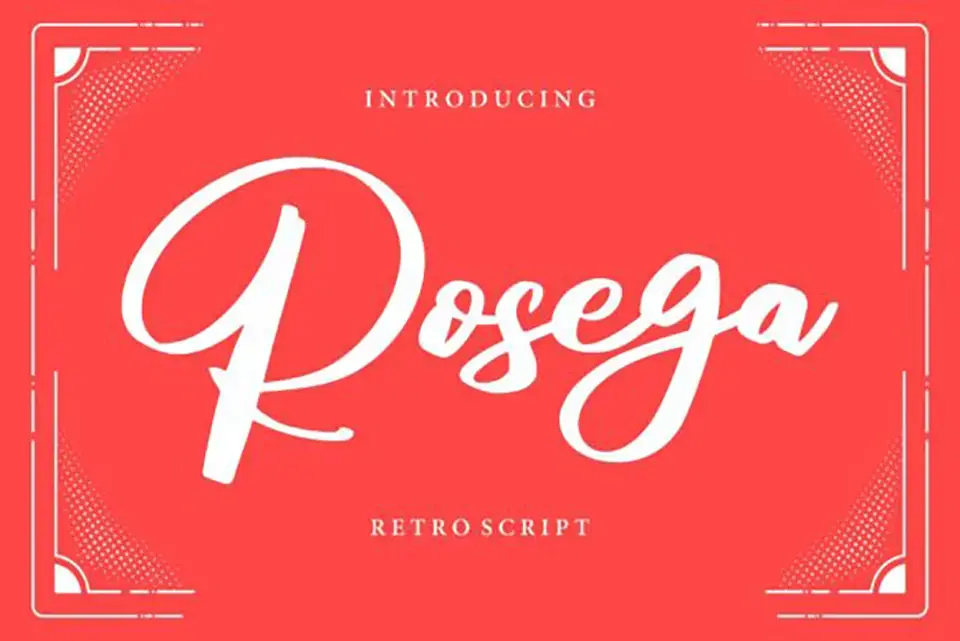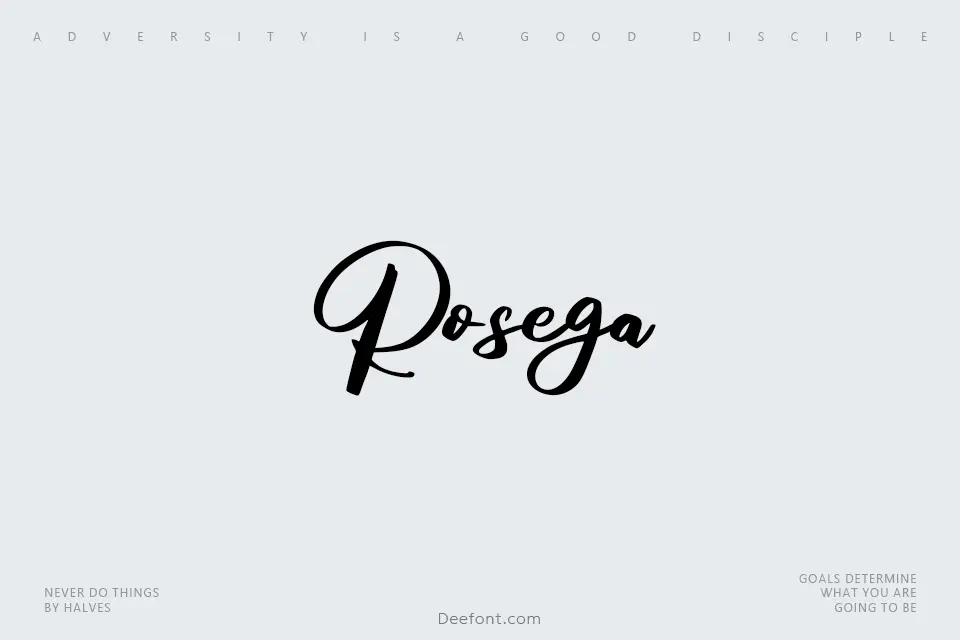
Rosega Font
Rosega is a stunning script font that combines elegance and femininity for sophisticated design projects. Its smooth, flowing letterforms deliver a handwritten charm ideal for wedding invitations, luxury branding, logo creation, and upscale packaging design. With bold yet graceful strokes, Rosega transforms any design into a memorable visual statement, making it the perfect choice for feminine and elegant branding needs.